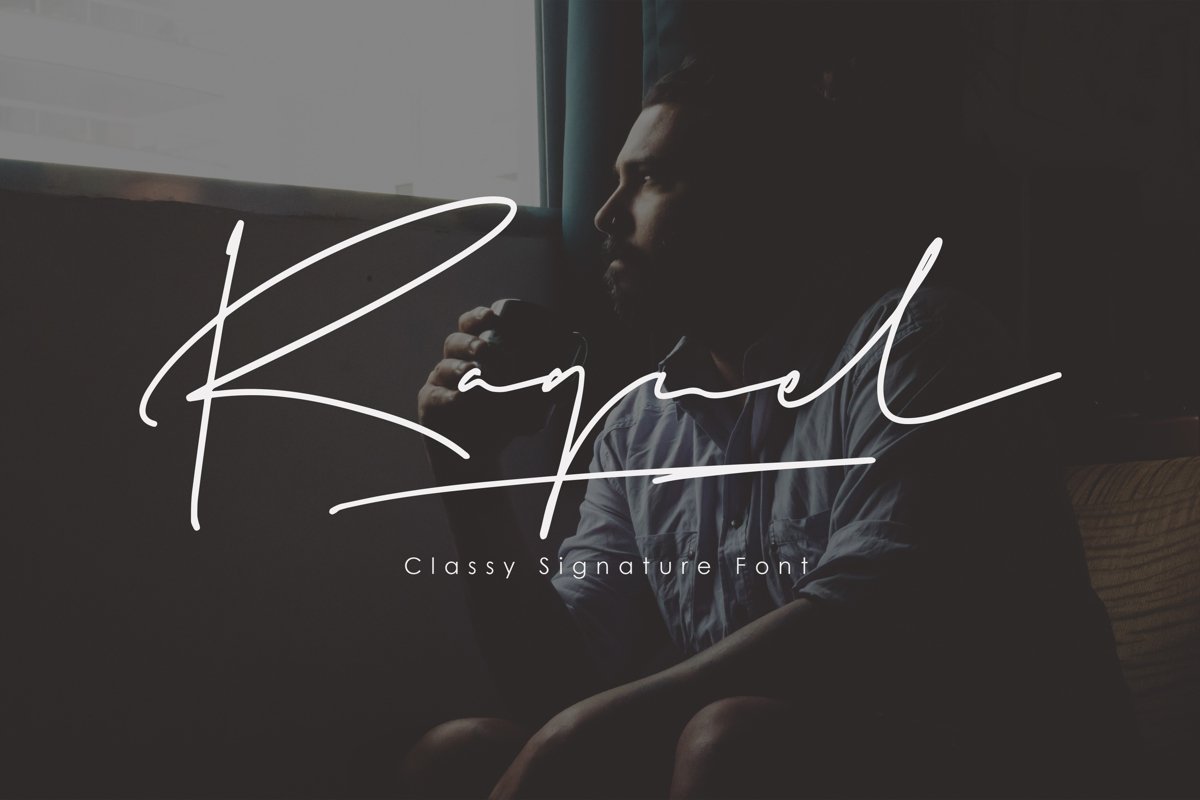
Raguel is perfectly suited to signature, logo, stationery, branding, website header, typography quotes, clothing, magazine, book cover, packaging design and more. A handwritten script font containing upper and lowercase characters, numerals, ligatures, and range of punctuation. Raguel it has over 150 glyphs, is extremely smooth and is packed full of classy. There are over 40 different ligature and swashes which connect to, not only, the lowercase alphabet but also on the left of the uppercase letters and the ligatures too.
- Uppercase Glyph
- Lowercase Glyph
- Numeral Glyph
- Punctuation Glyph
- 40+ Ligature
- Swashes